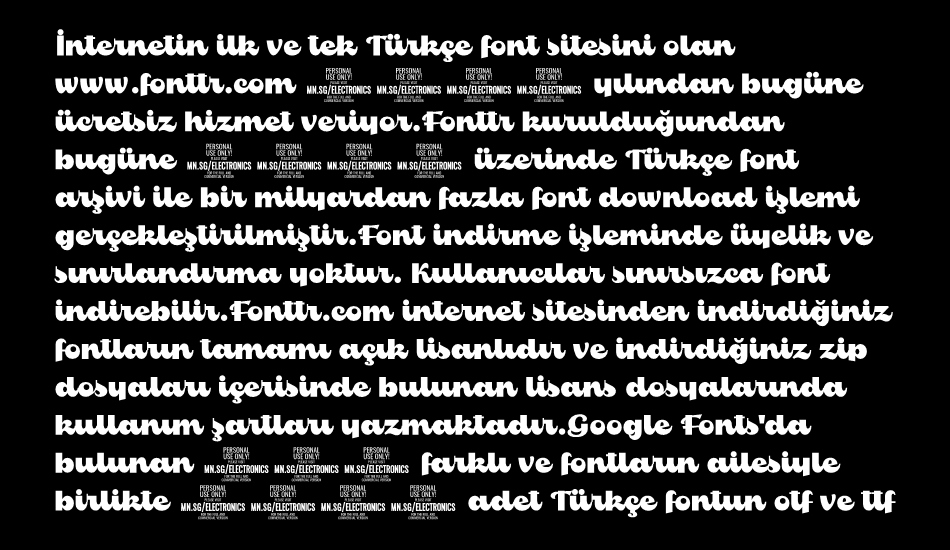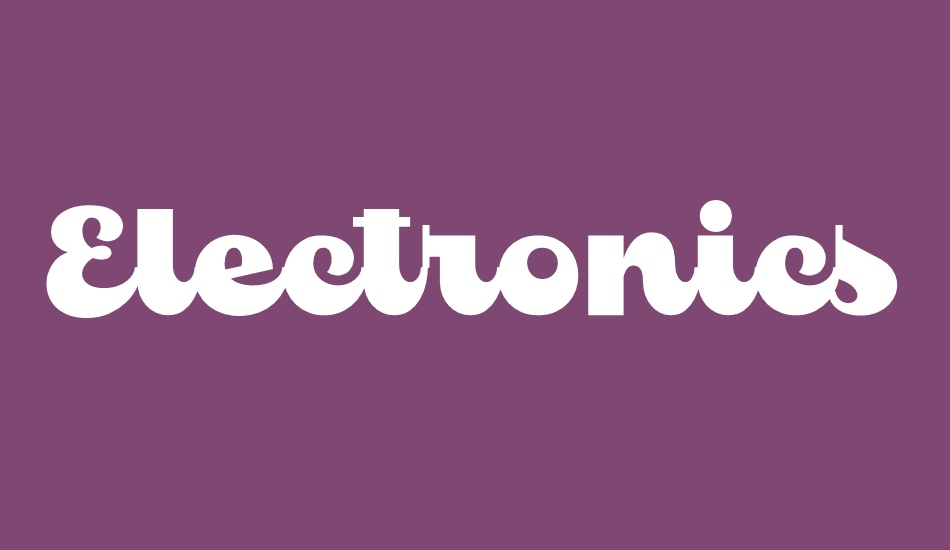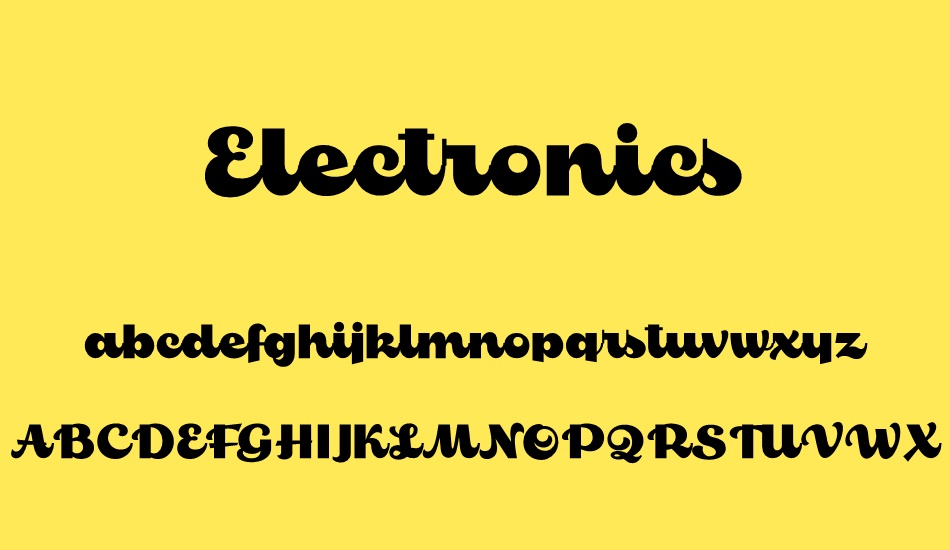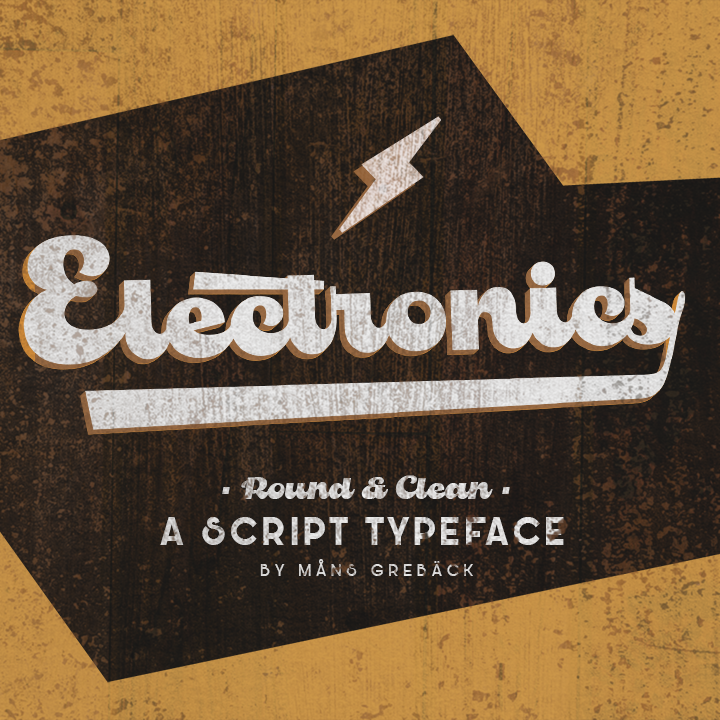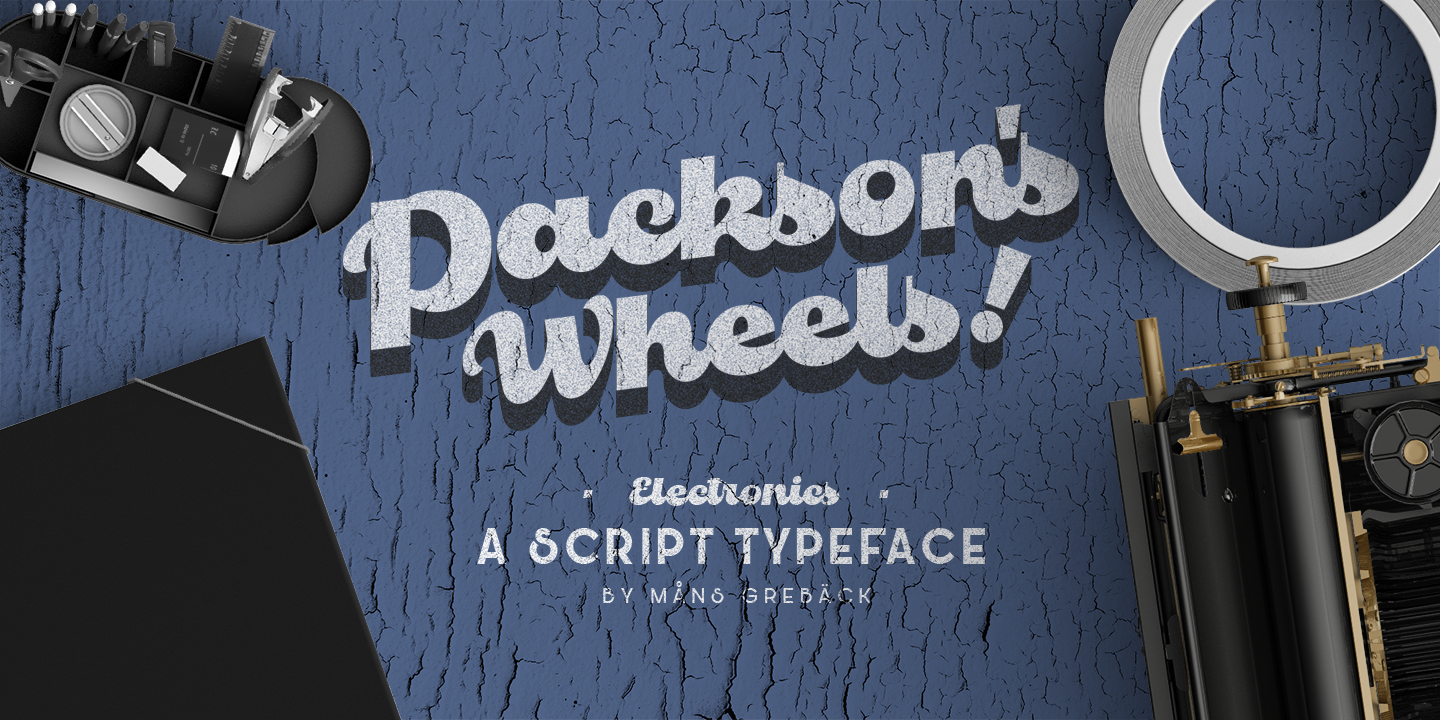
Electronics font
With round and clear letters, Electronics is a high quality script typeface.
It is designed and created by M?ns Greb?ck and has a bold and upright look.
The font contains ligatures and a lot of alternate characters.
It also supports hundreds of languages, and includes an underlined version.
Use underscore to make a swash.
Write ? to make a top swash.
Example: Elec?tronics_
For the underlined version, the underscore can be used to connect the underline to the word.
Example: Writing_